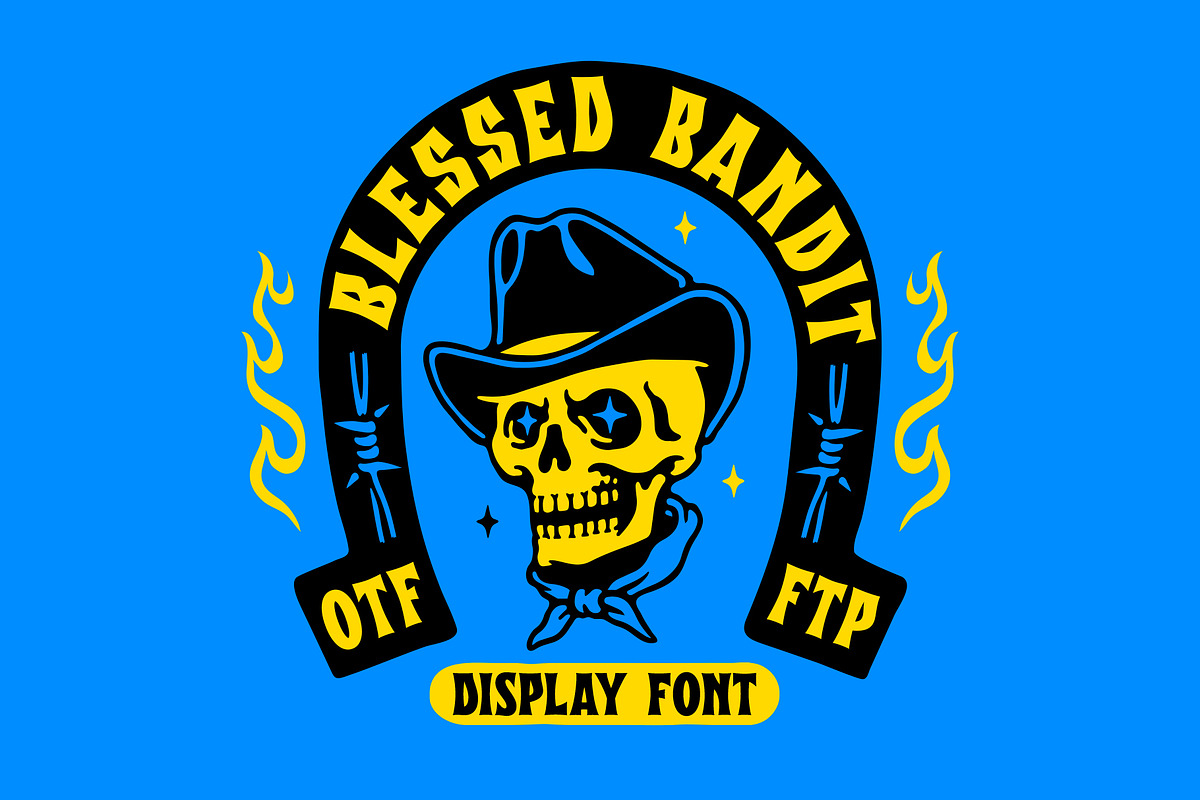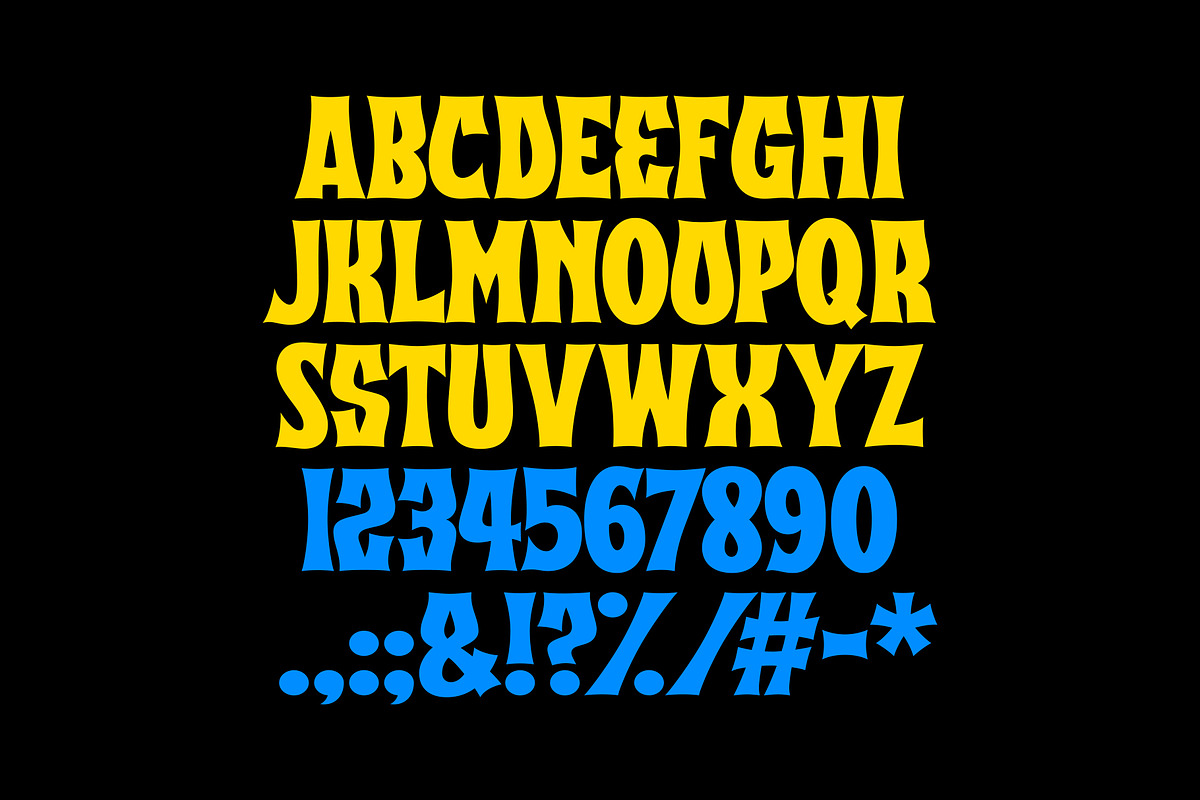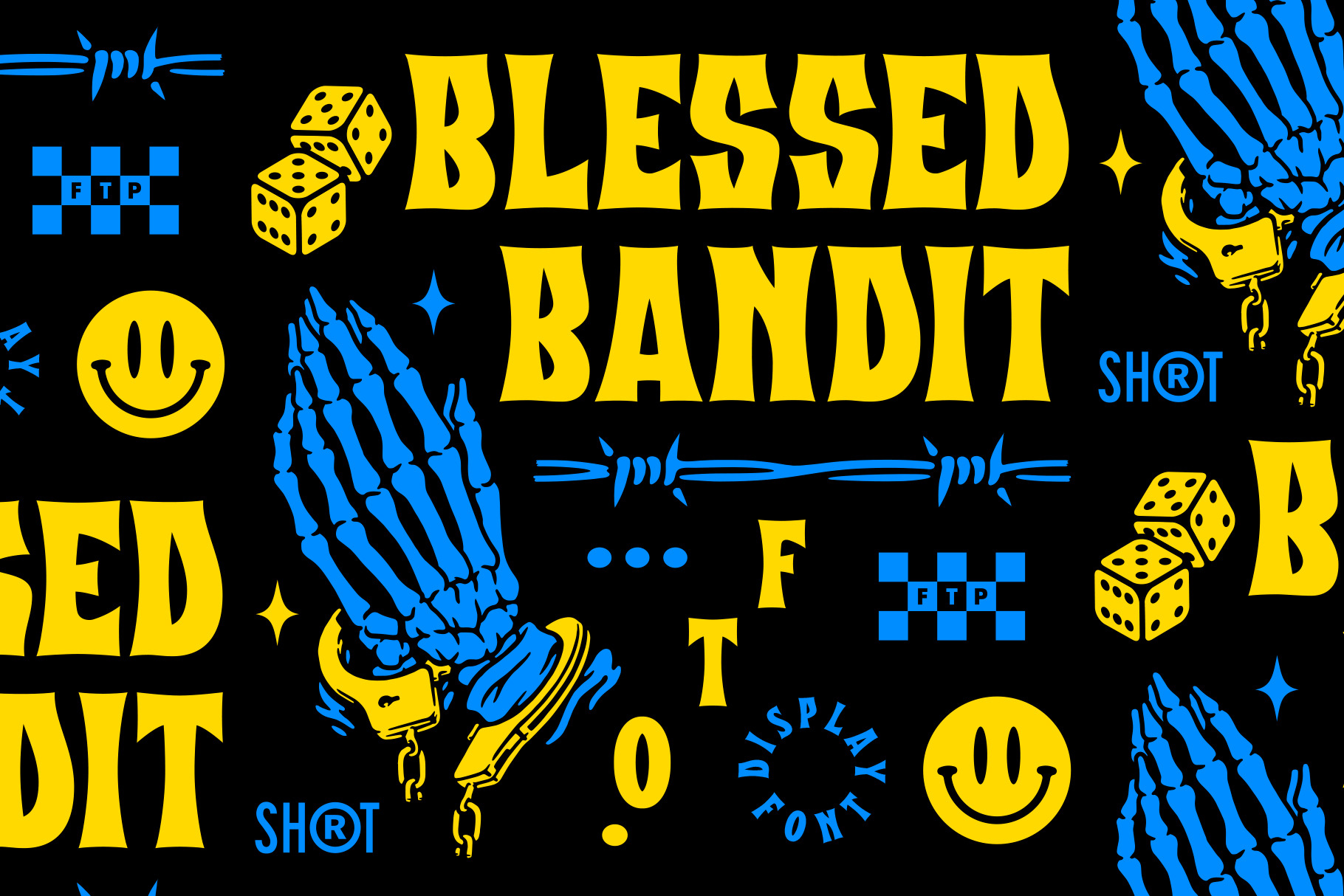
Blessed Bandit Font
This font comes with Uppercase Letters, Numbers and some punctuation. Get some badass designs done with the “BLESSED BANDIT” Font! :) .Otf file format.